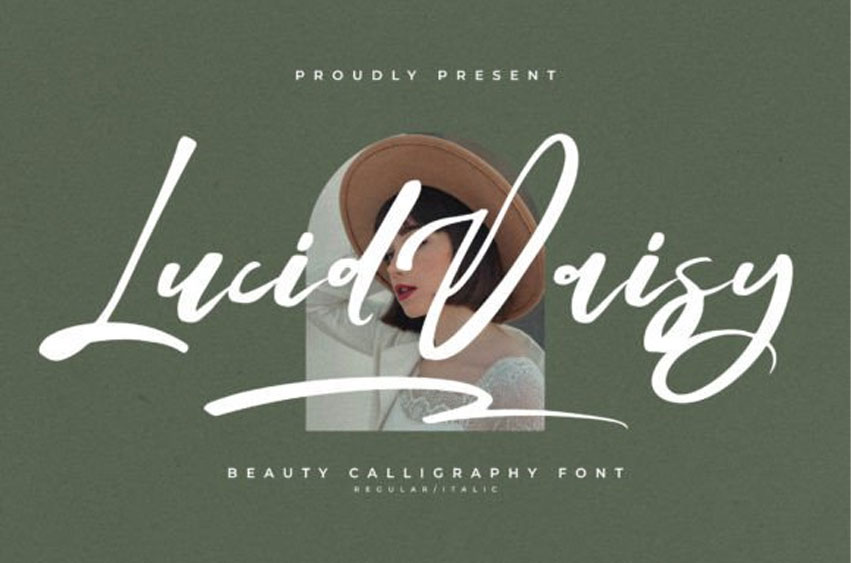
Lucid Daisy Font
Lucid Daisy Font is a romantic and sweet calligraphy typeface with characters that dance along the baseline.
It will add a luxury spark to any design project that you wish to create!